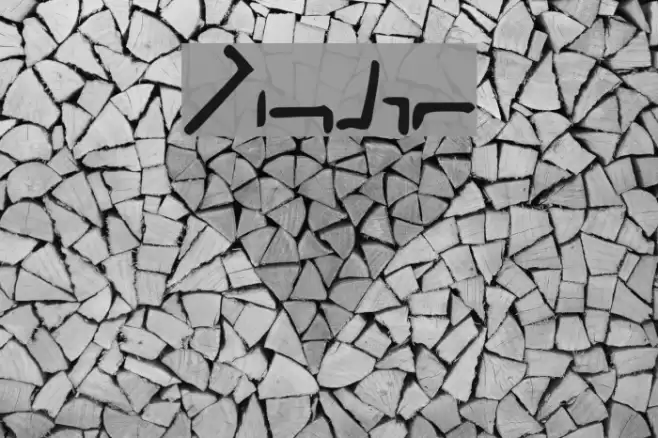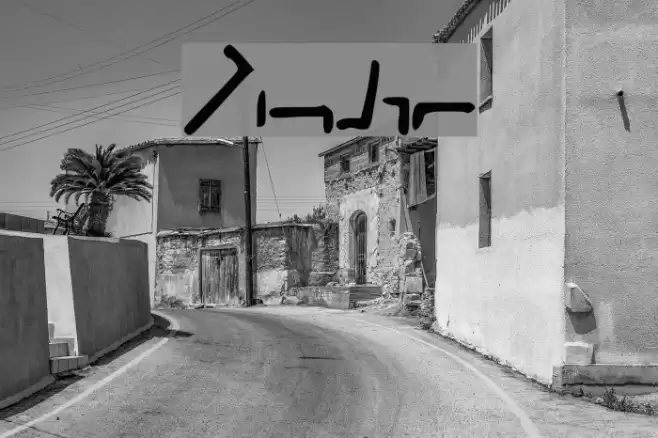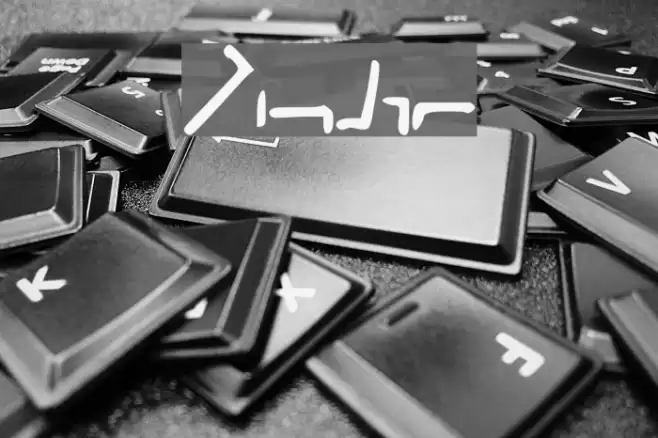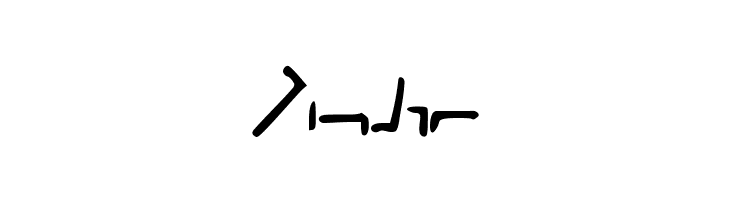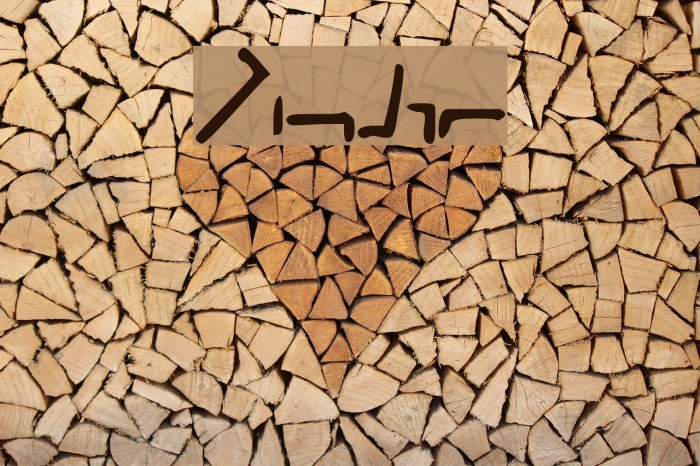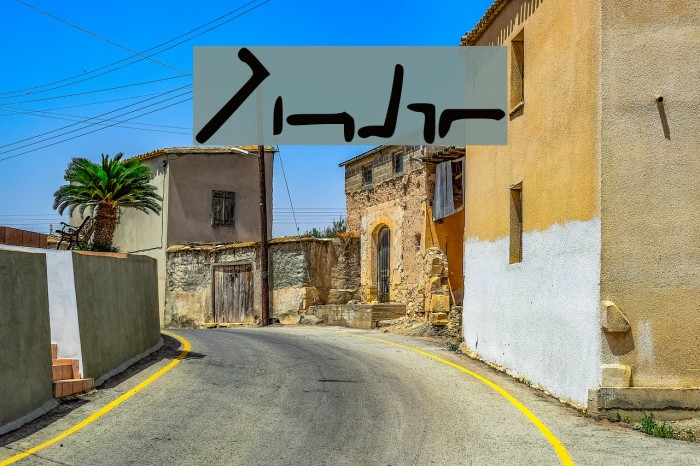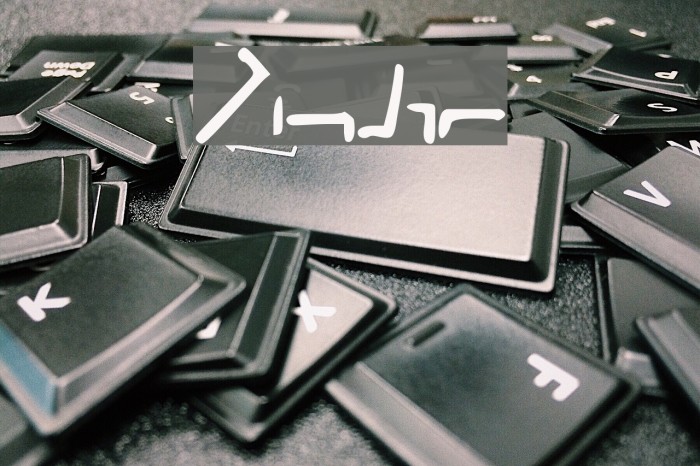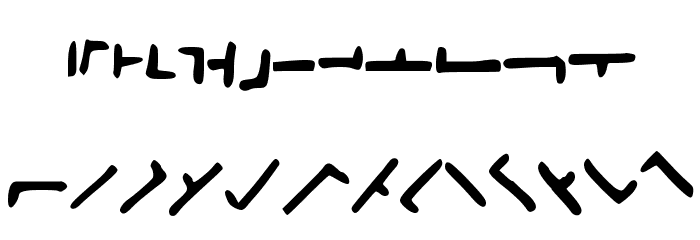
PalGen Font
PalGen Description
This font features a highly abstract and symbolic design, resembling a series of geometric shapes and lines rather than traditional alphanumeric characters. The strokes are bold and consistent in weight, creating a uniform appearance across all symbols. The characters are composed of straight lines and angles, giving it a futuristic and coded aesthetic. The overall style is reminiscent of a cipher or a secret code, making it intriguing and mysterious. This font is not suitable for standard text but serves as an artistic or decorative element.
An abstract, geometric font with a coded, futuristic aesthetic from Uncategorized fonts.
- Proposed Projects: Ideal for artistic projects, secret codes, futuristic designs, or as a decorative element in graphic design.
- Overall Style: Futuristic, Abstract
- Use Case: Decorative elements, Artistic projects